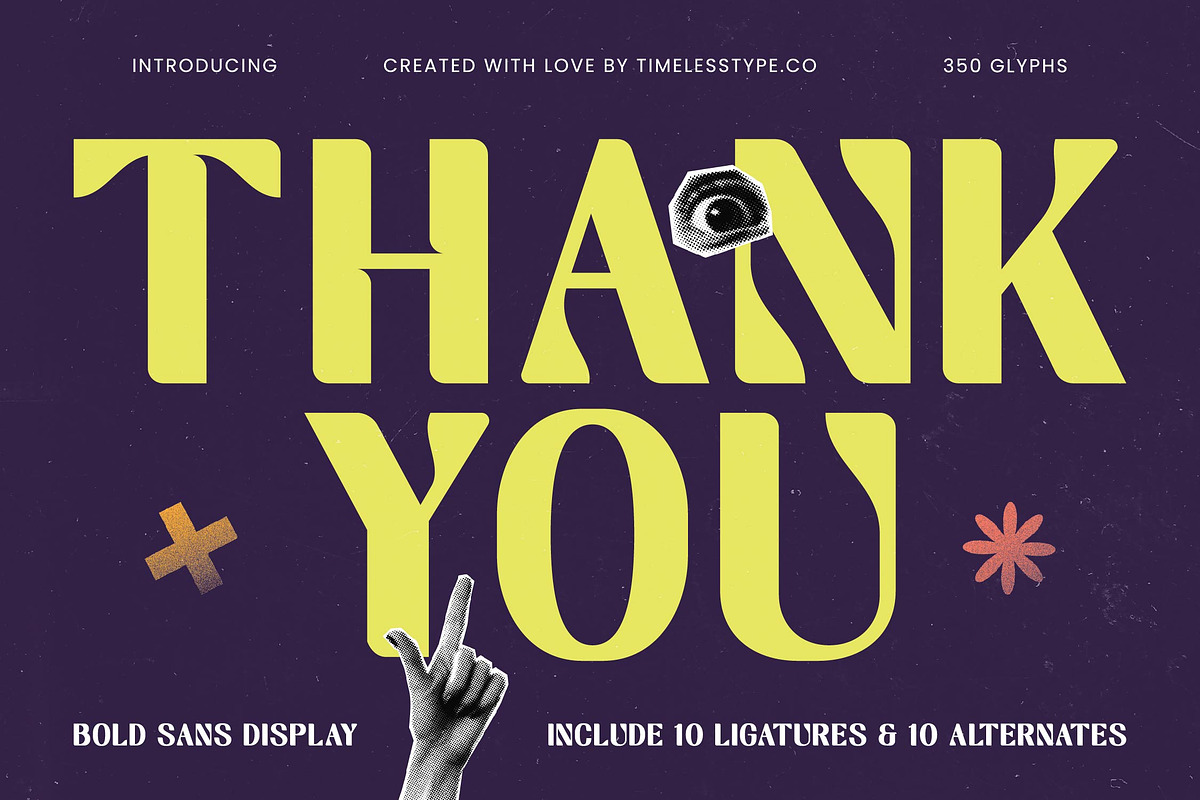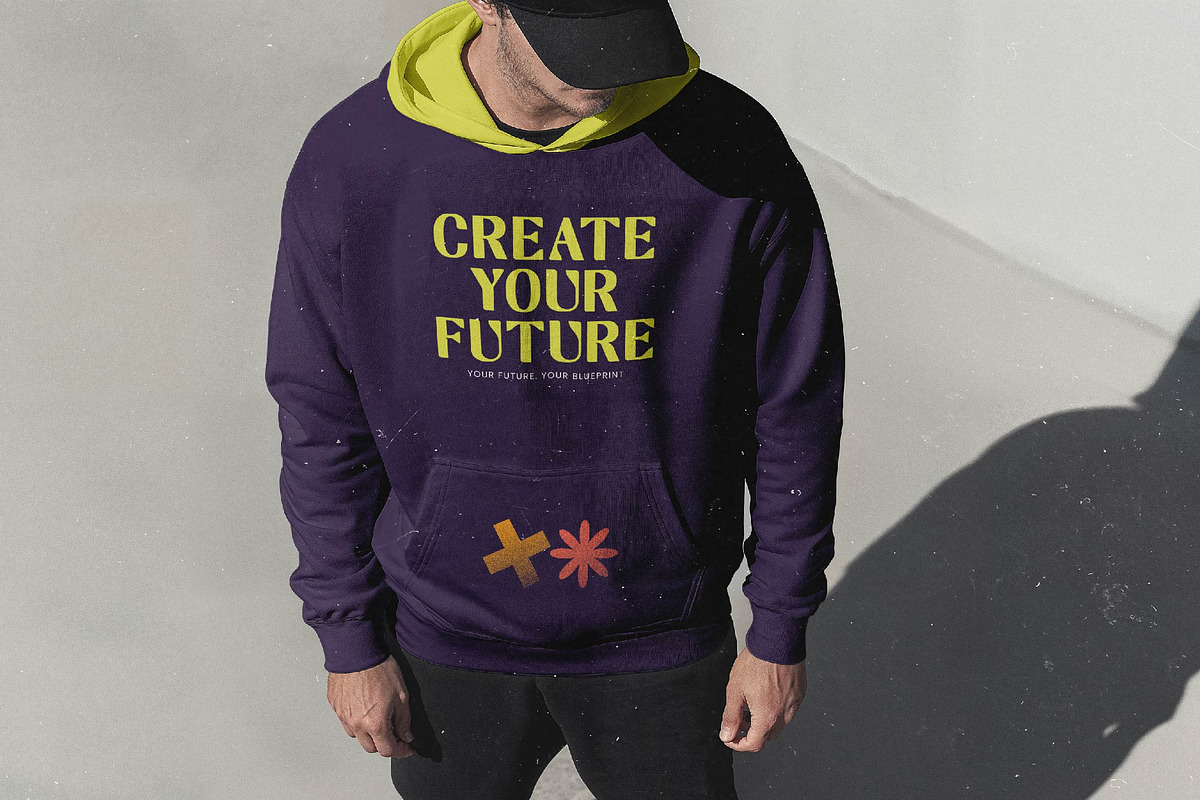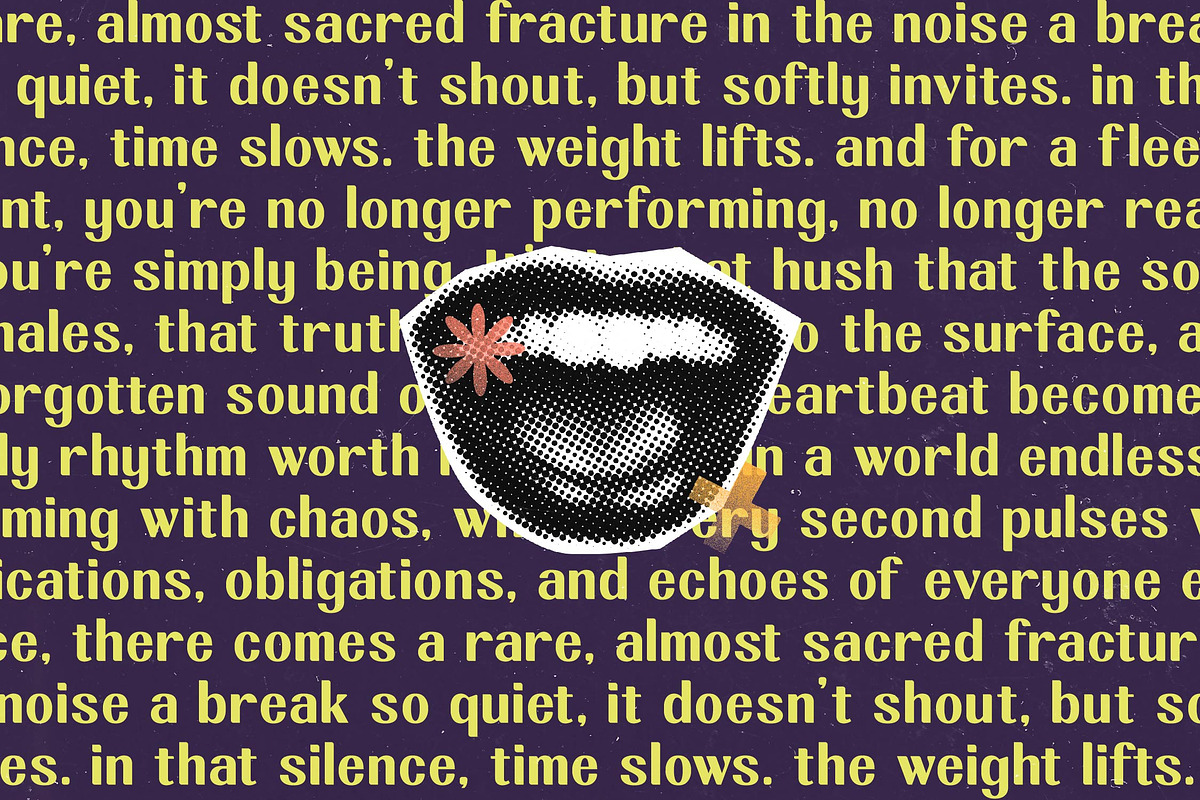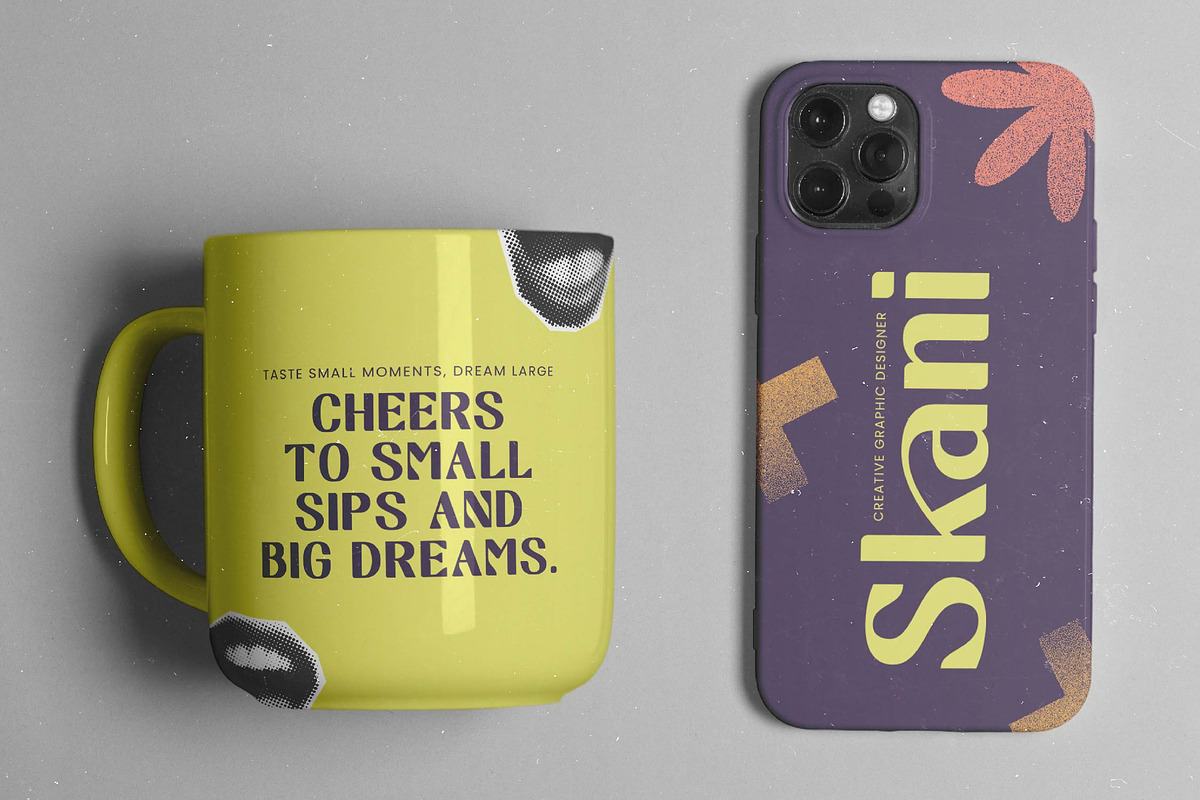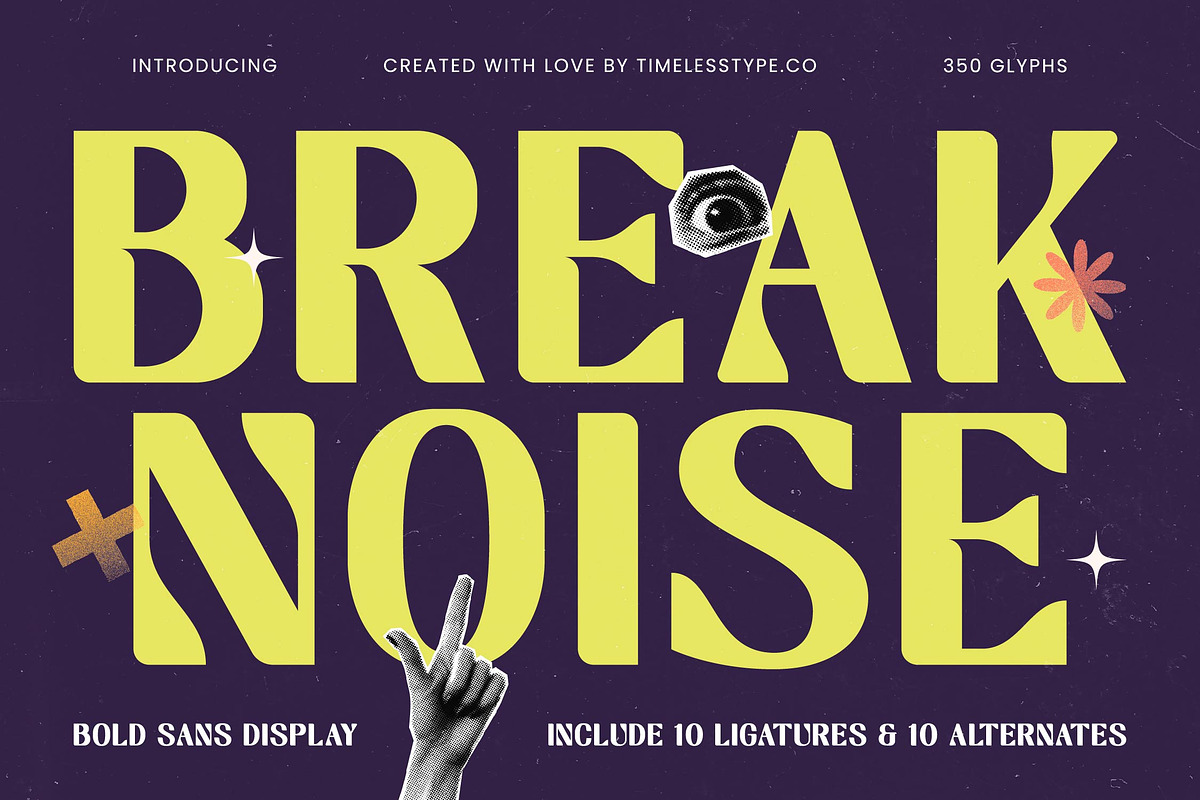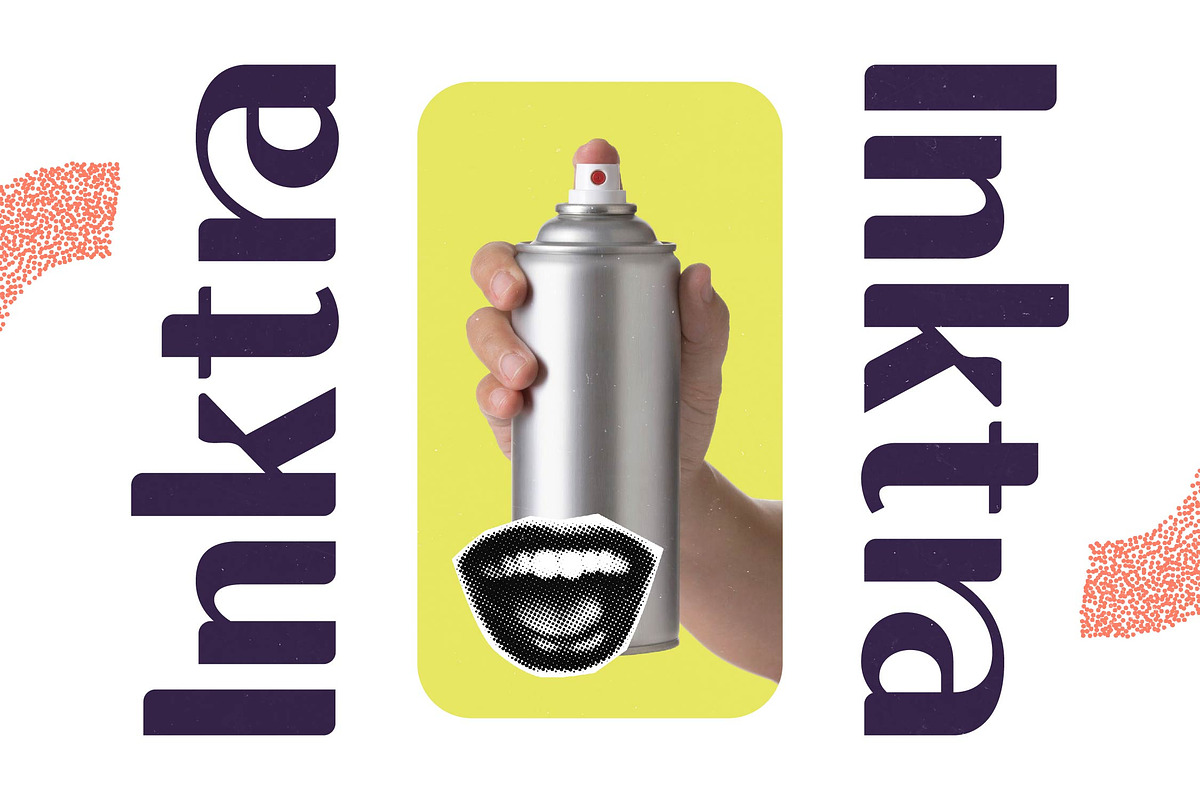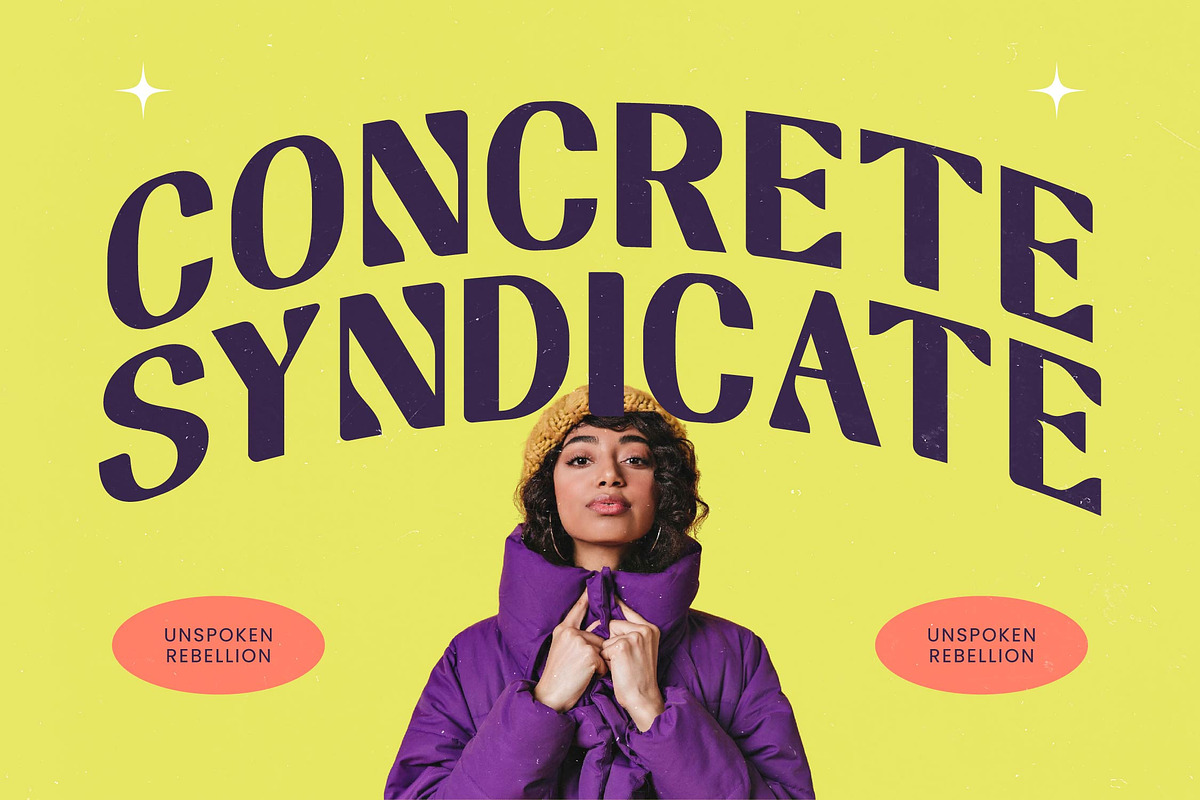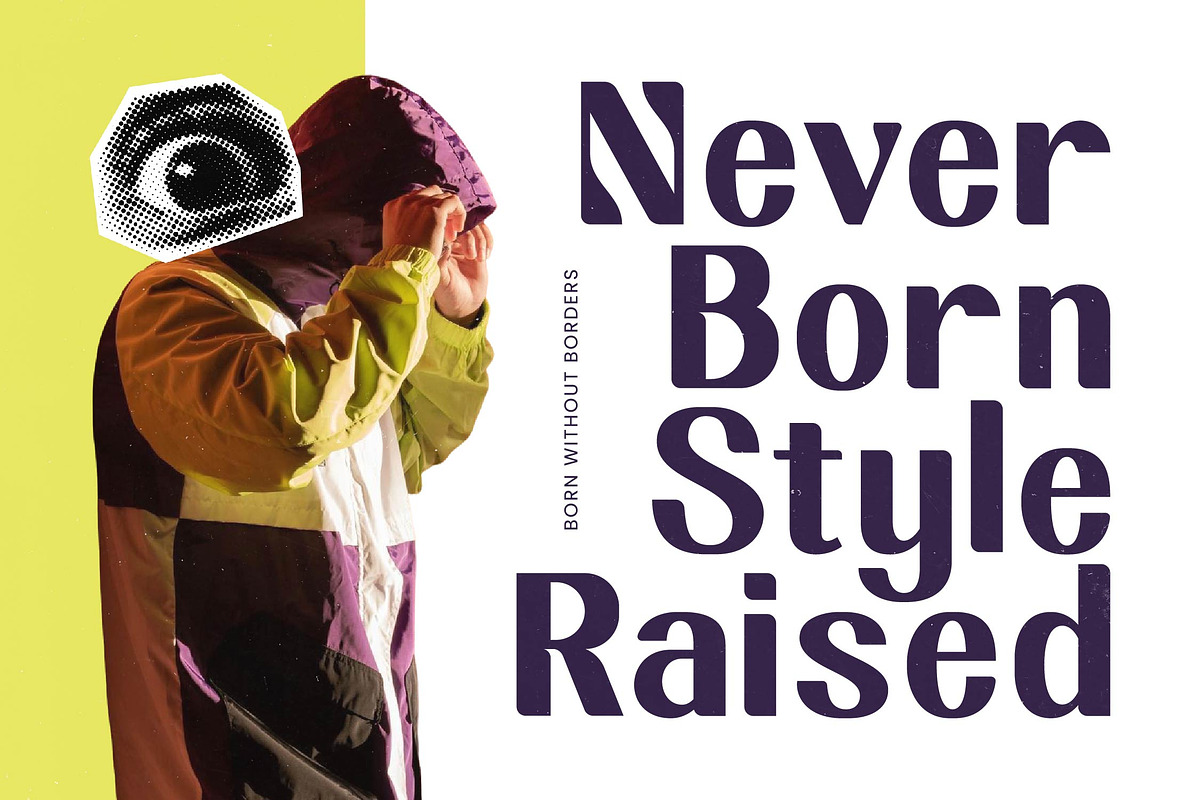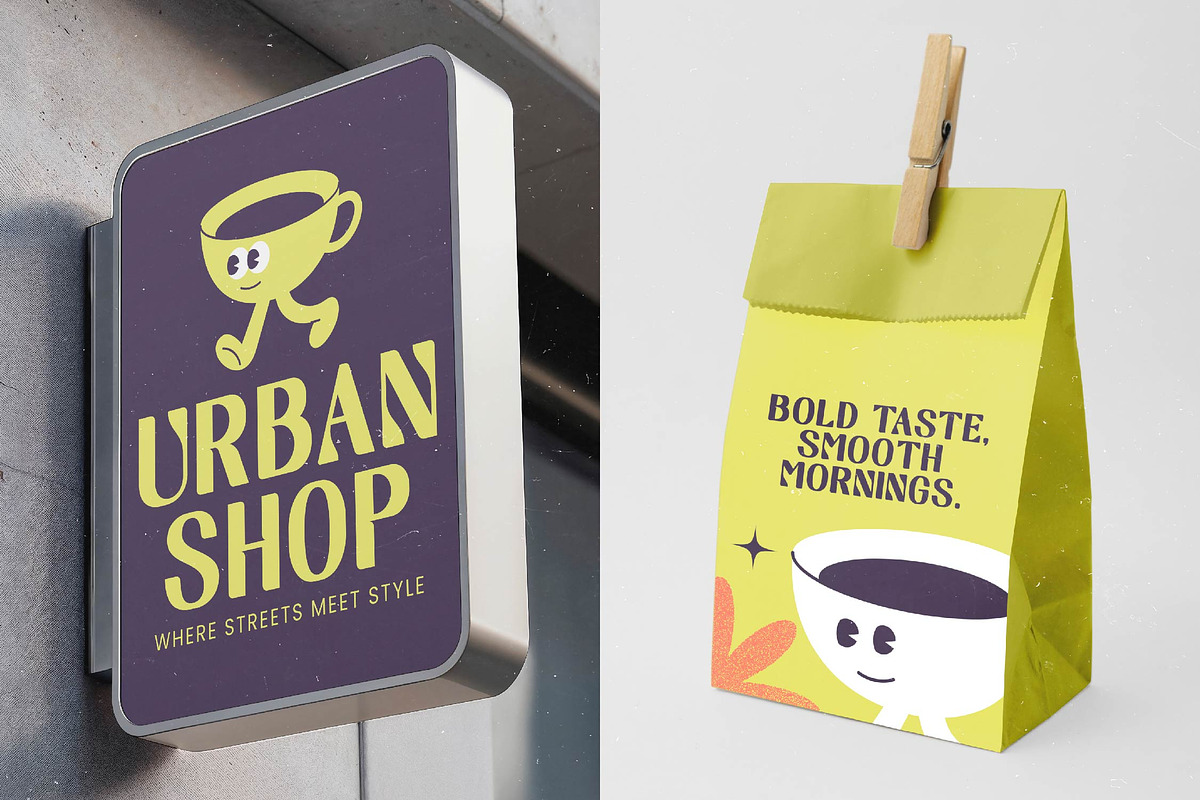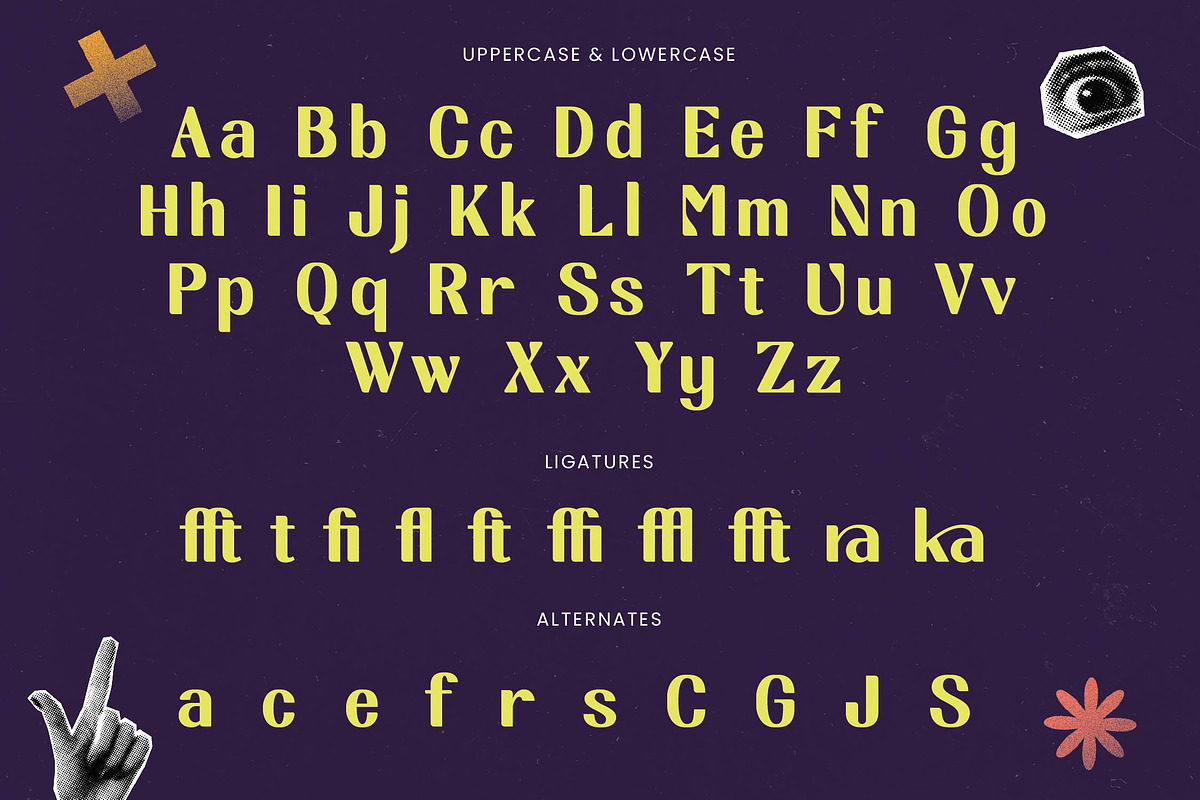
Break Noise Bold Sans Display
Experience the raw energy and unapologetic presence of Break Noise, a typeface designed to command attention and disrupt the ordinary. This bold sans display font transforms every word into a visual statement that resonates with modern audacity and creative freedom.
Inspired by the vibrant chaos of neo-punk zines and the tactical grit of analog collage art, this typeface captures a unique juxtaposition of structured weight and experimental flair. It draws from the rebellious spirit of DIY culture while maintaining the technical precision required for professional design projects.
With its heavy weight and sharp counters, this modern serif display provides a gritty alternative to traditional luxury typography. It functions with the visual weight of a high-contrast serif, serving as a powerful editorial font for those who need a distinct branding impact in a crowded marketplace.
Tapping into the modern serif trend that blends vintage proportions with contemporary edges, this font fits perfectly within the current landscape of editorial display fonts. It represents the shift towards character-driven typography where the letters themselves become the primary graphic element of the composition.
This versatile powerhouse is the ultimate choice for disruptive logo design and high-energy branding suites. From gritty editorial layouts and experimental packaging to avant-garde fashion campaigns and even a rebellious wedding invitation suite, it adapts to any medium requiring a loud, clear voice.
The package is fully loaded with 350 glyphs including unique ligatures and creative alternates that allow for endless customization. It offers comprehensive multilingual support and includes all necessary international characters to ensure your message reaches a global audience without compromise.